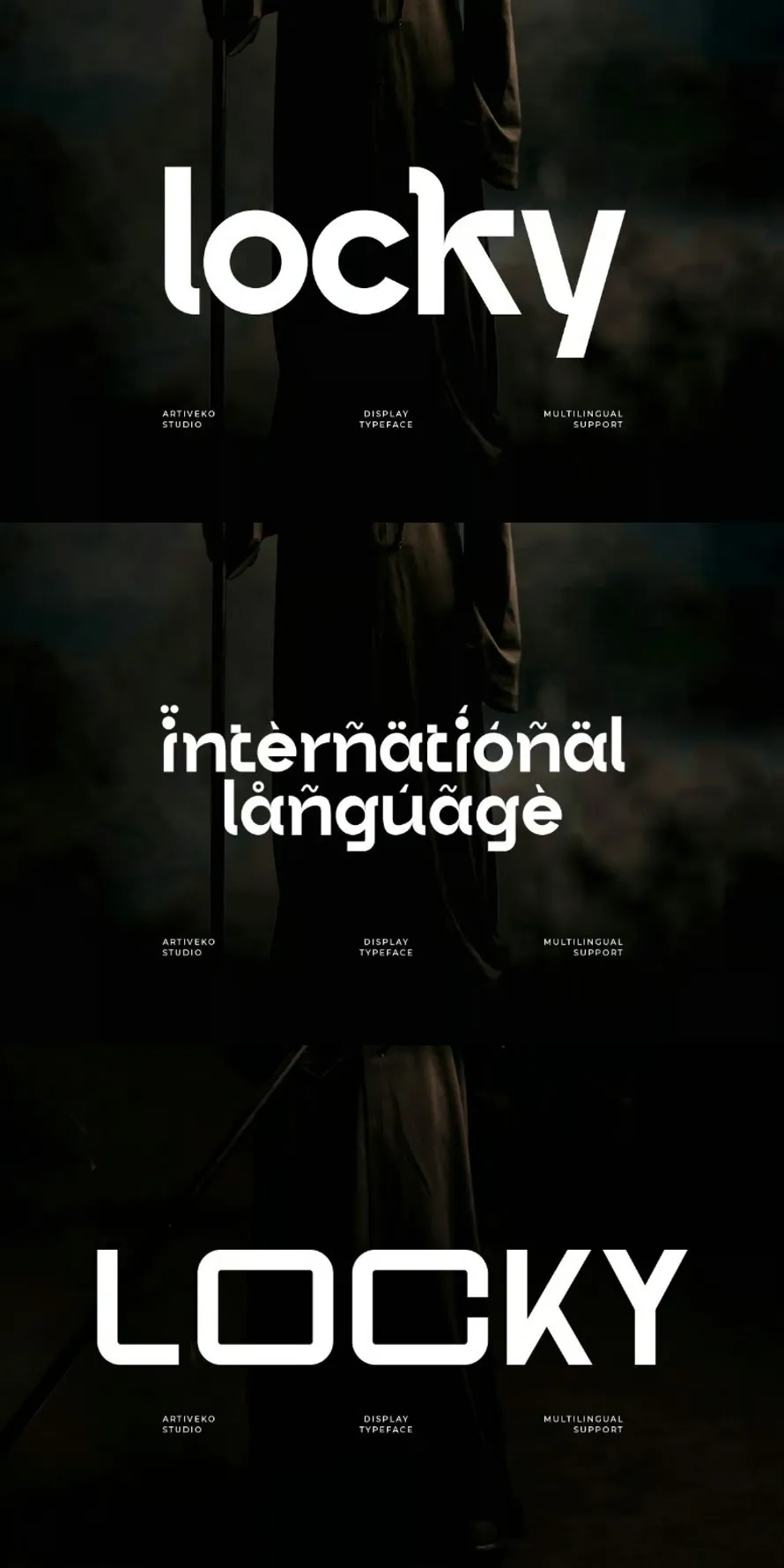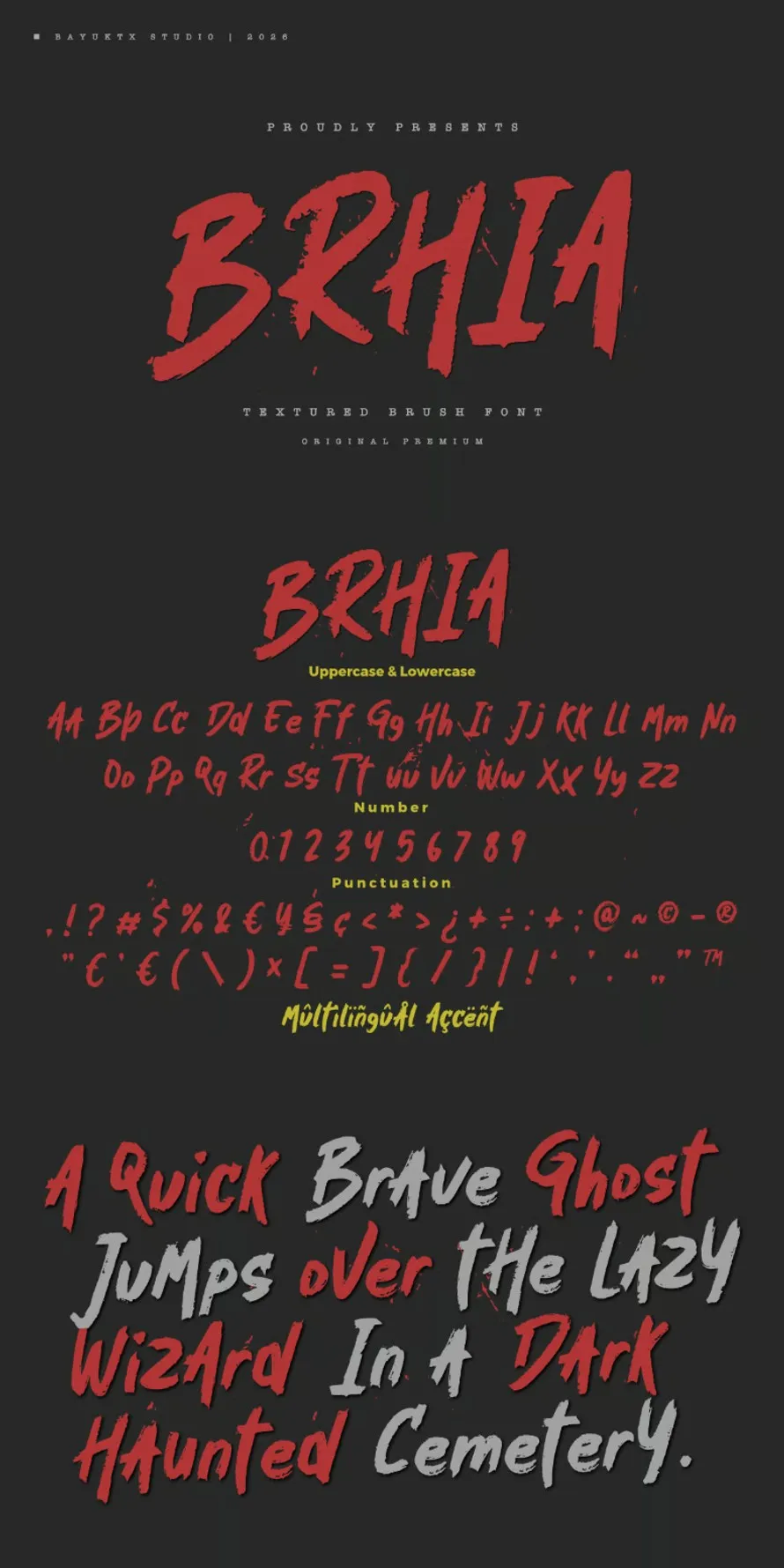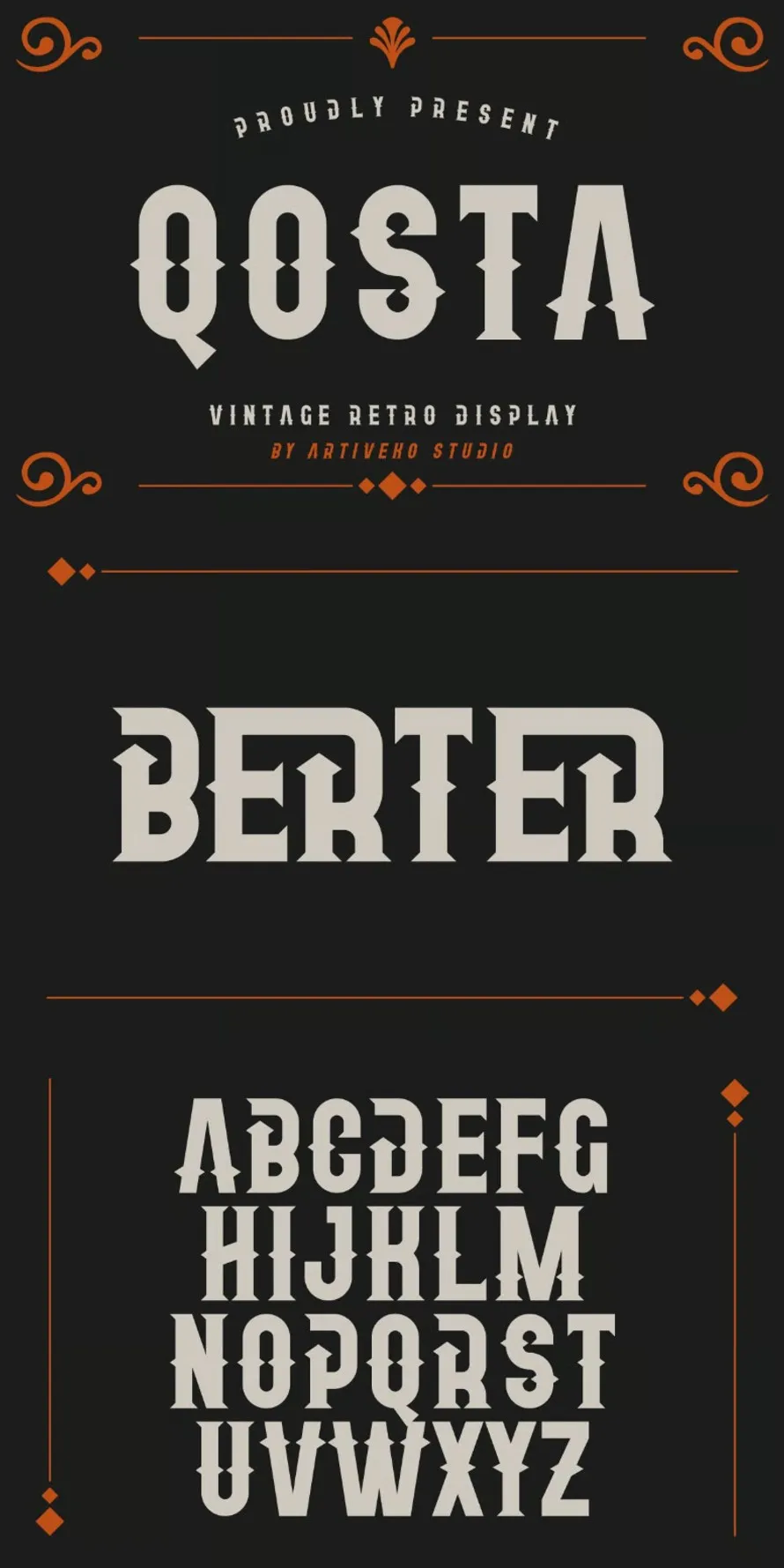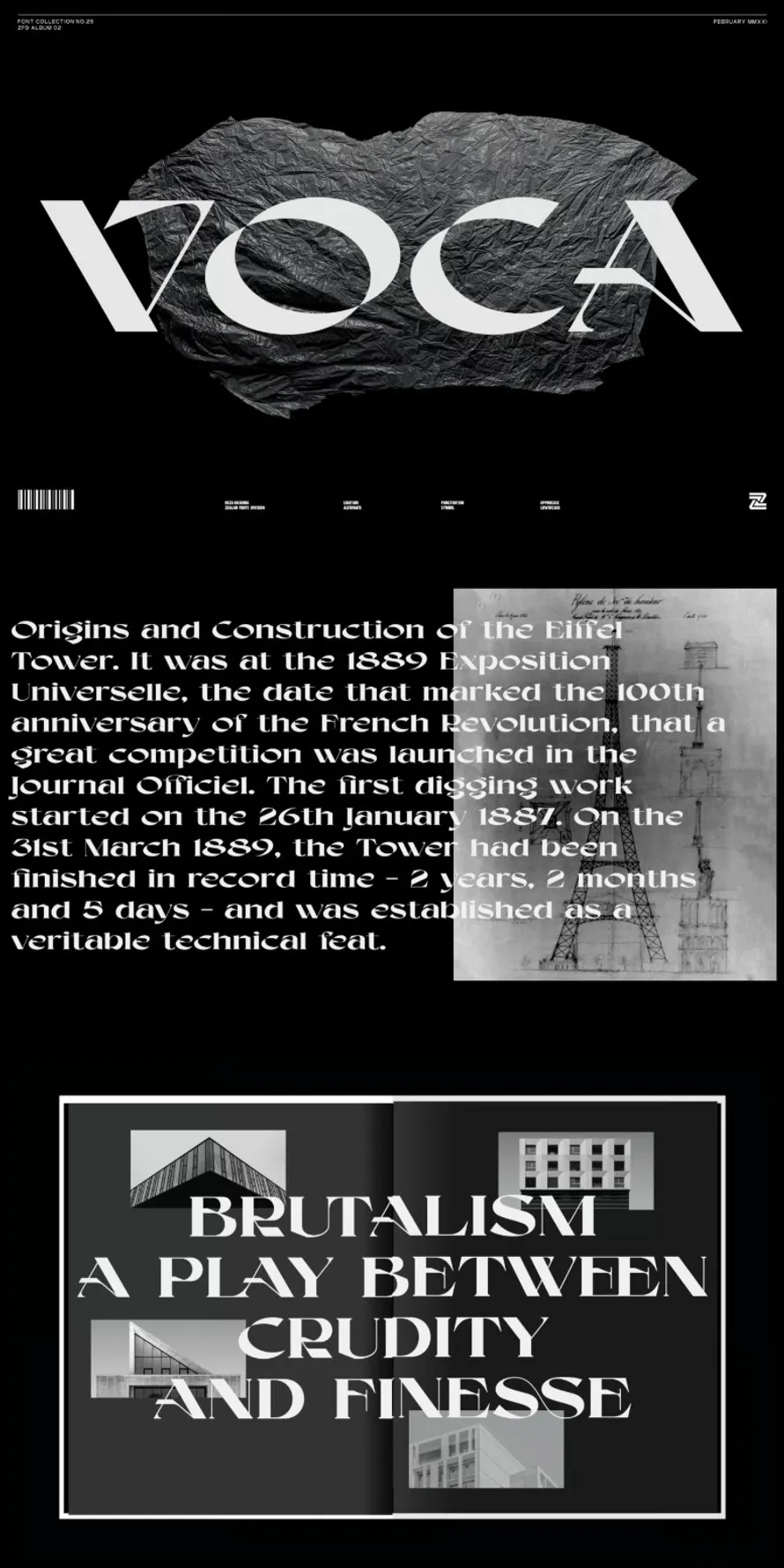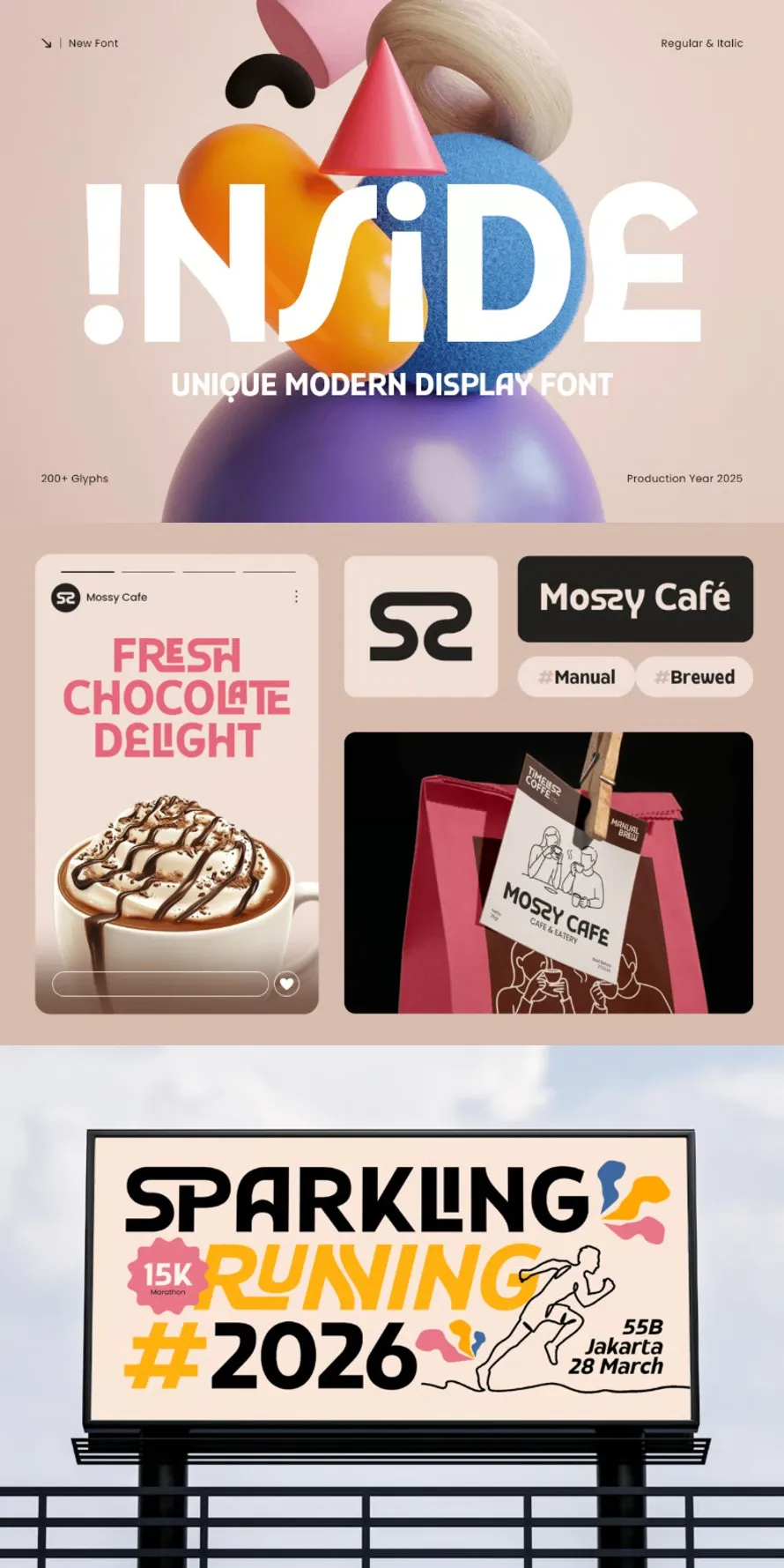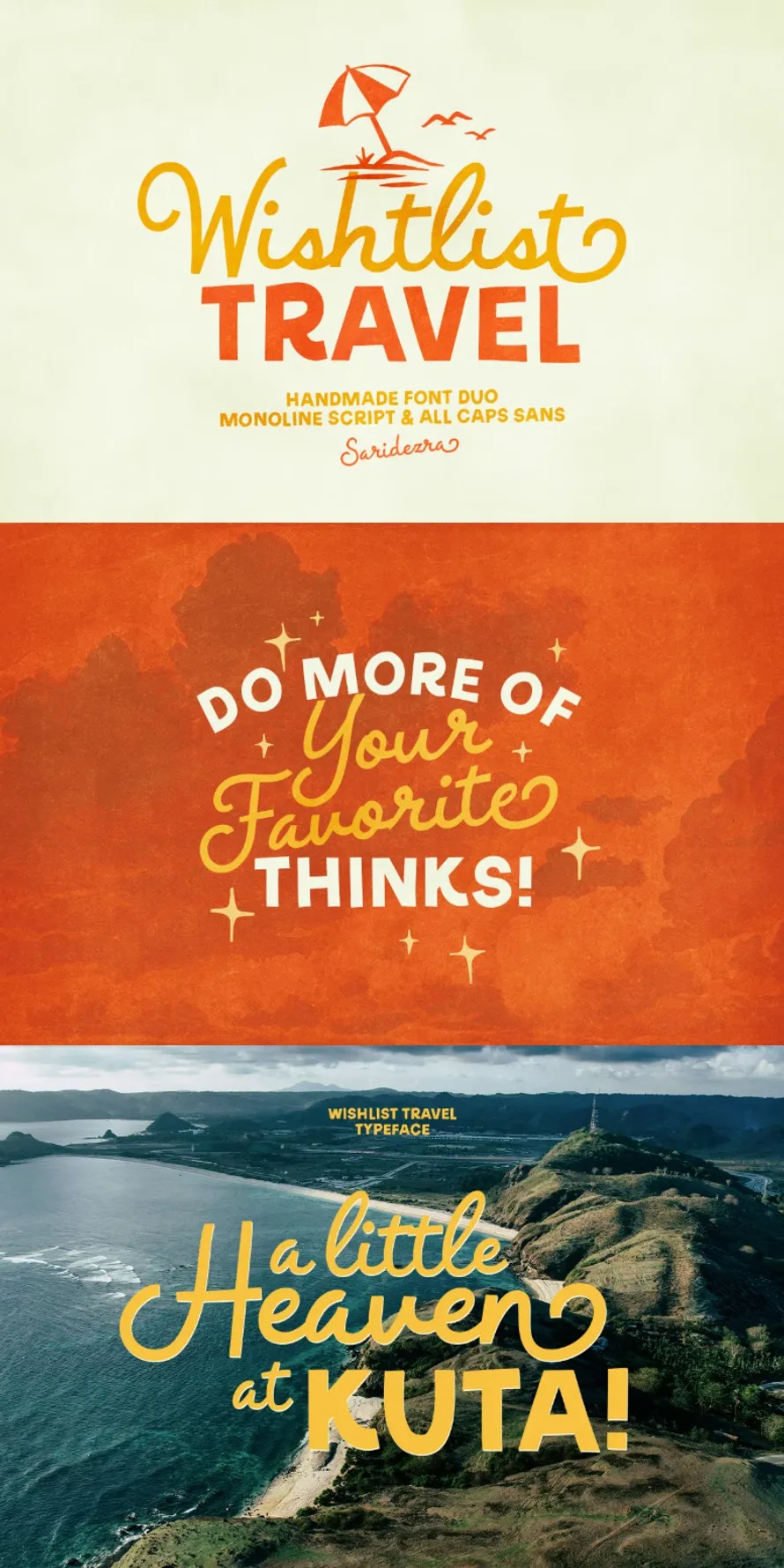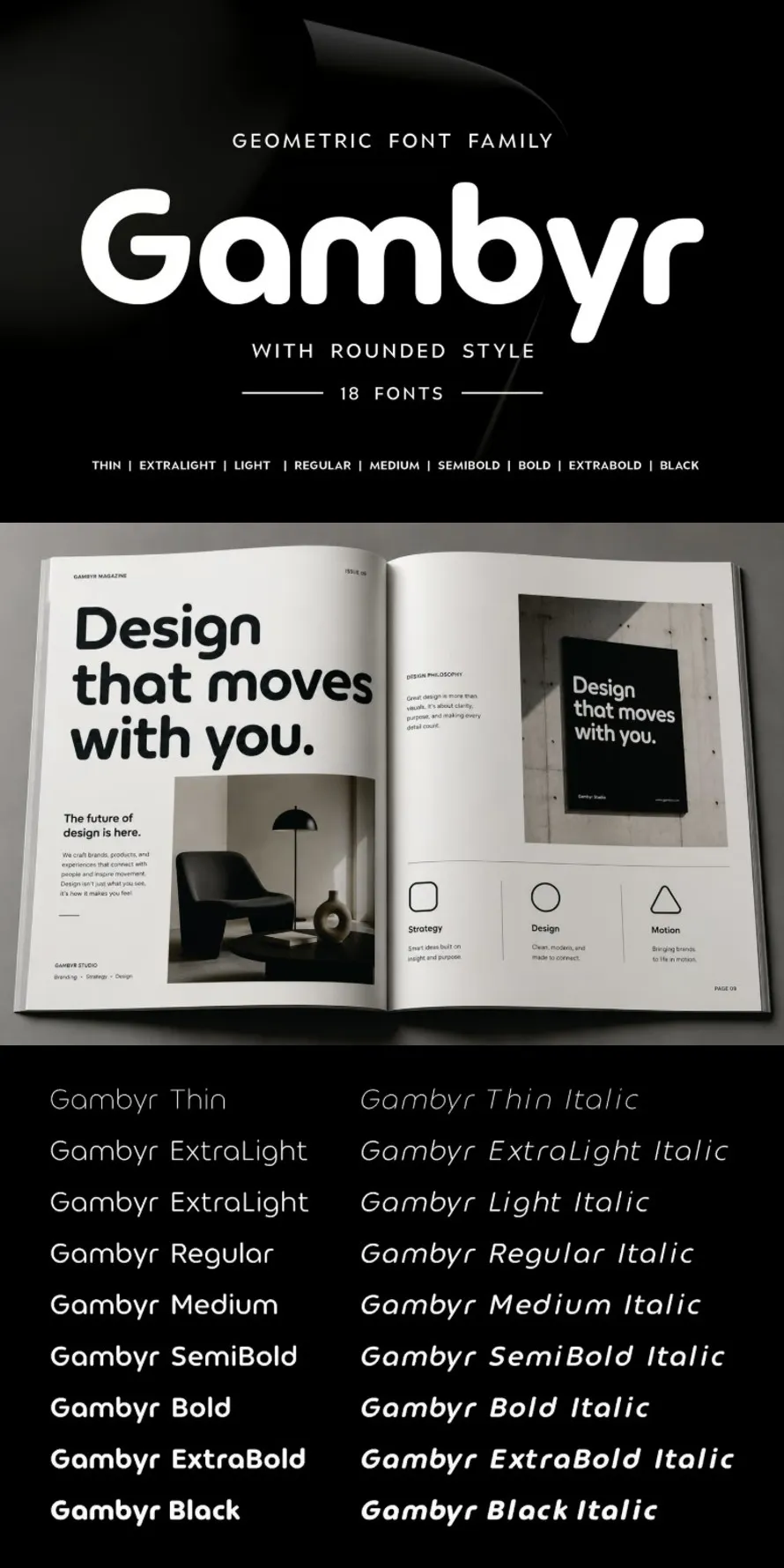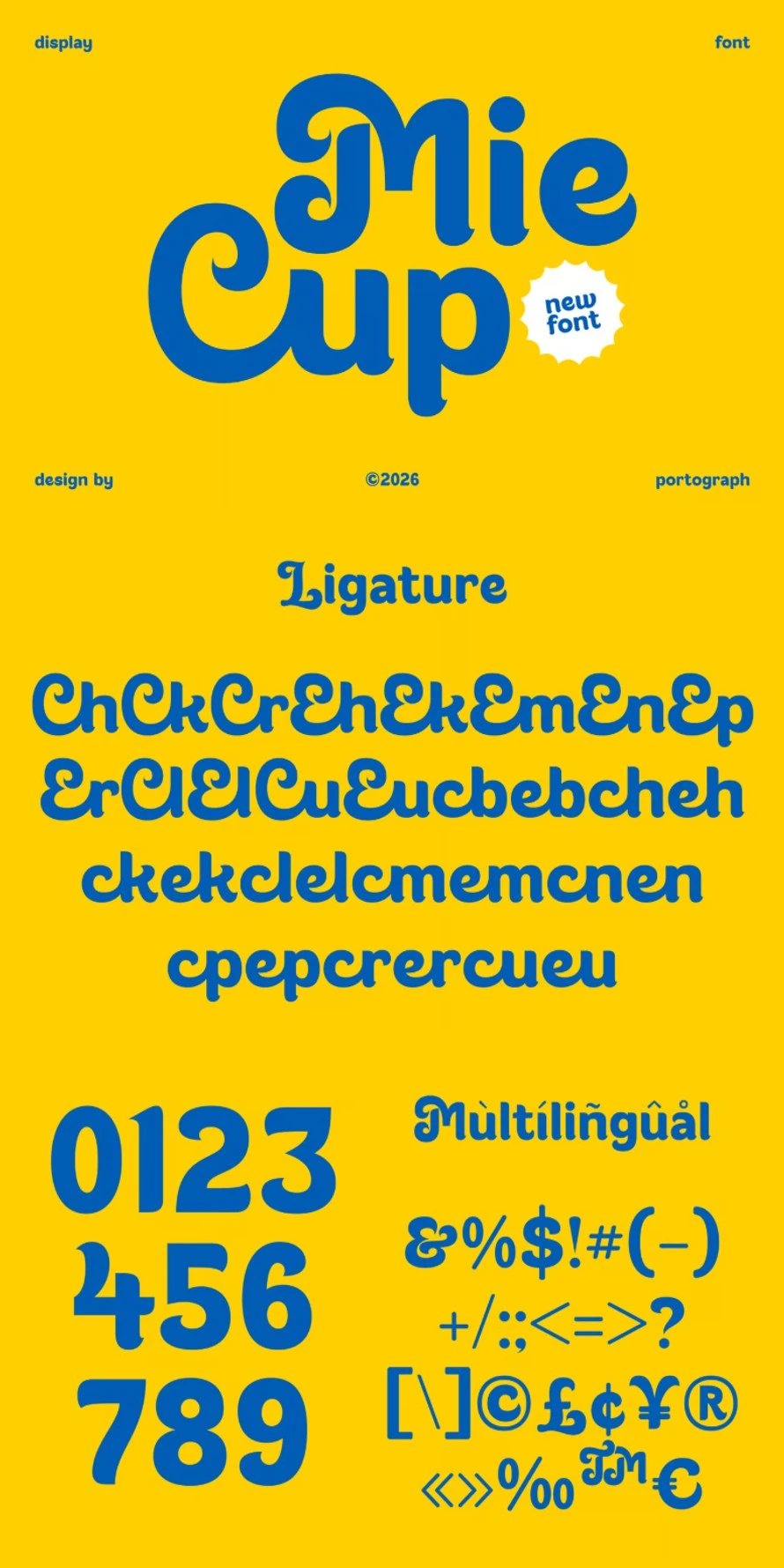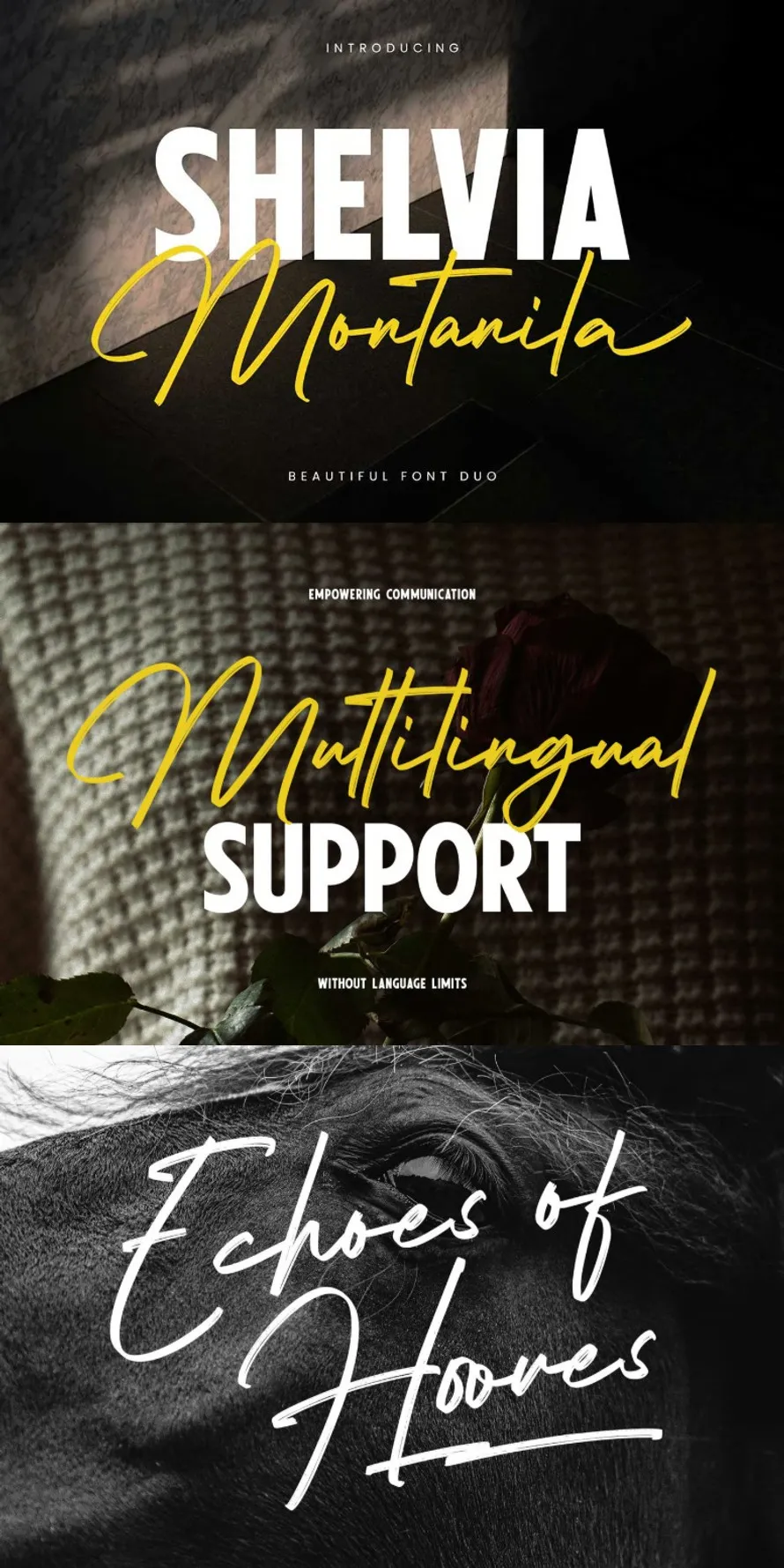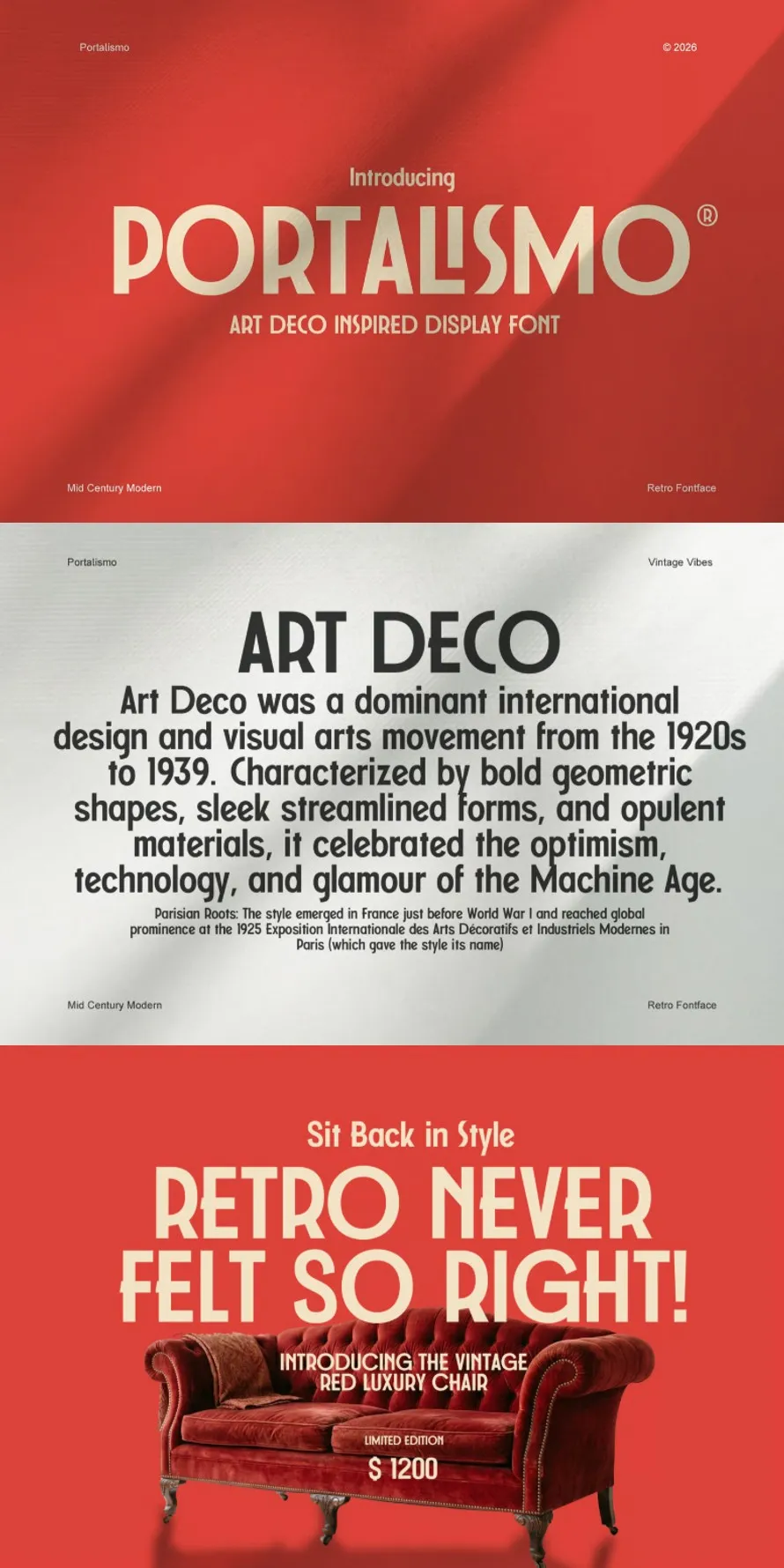
30 Best Poster Fonts Of 2026 (Free & Paid)
2026’s best poster fonts are here. Whether you’re designing event posters, advertising campaigns, movie promotions, music festival graphics, or social media banners, the right poster font can make your message stand out and leave a lasting impression.
In 2026, poster design trends continue to evolve with a mix of bold display fonts, modern sans-serif fonts, vintage-inspired typefaces, creative handwritten styles, and experimental typography. Designers are looking for fonts that not only look visually appealing but also communicate a strong personality and improve readability from a distance.
Best Poster Fonts Of 2026 (Free & Paid)
This collection of the 30 Best Poster Fonts of 2026 features carefully selected typefaces that are perfect for both print and digital projects. From striking headline fonts to artistic lettering styles, these fonts offer the flexibility needed to create memorable posters for businesses, brands, events, and personal projects.
Whether you’re a professional graphic designer, marketer, content creator, or beginner, you’ll find inspiring font choices that can elevate your poster designs. Explore this beautiful collection to discover modern, stylish, and high-impact poster fonts that will help your creative work stand out in 2026 and beyond.
Logo Font Pooline
Pooline font is a modern elegant sans serif typeface designed with a clean and minimal approach, making it perfect for contemporary branding and visual identity.
Drawing inspiration from Helvetica, Montserrat, and Futura, it combines geometric balance with a smooth, friendly appearance.
Wishlist Travel – Handmade Font Duo
Wishlist Travel is a clean handmade font duo contains monoline script and bold sans. With stylish and festive looks, you can use this font for any purposes such as wedding invitation, holiday card, logotype, quote, and branding.
The script of this font contains an ending alternates to balance the looks of the uppercase that will make your design even more stunning.
Brhia a Textured Brush Font
Brhia Textured Brush Font is a bold and expressive typeface inspired by raw brush strokes, hand-painted lettering, and gritty artistic textures.
Featuring rough edges, dynamic strokes, and natural imperfections, this font delivers a strong and impactful visual presence.
Locky – Contemporary Sans Poster Fonts
This font is perfect for posters, social media posts, branding, personal projects, etc.
Voca Serif Font
VOCA is a versatile, bold and unique serif font. Combination between high contrast and Brutalism style, VOCA has a unique style with stylistic, alternates, ligatures and supports multilingual languages.
Inside – Unique Modern Display Poster Fonts
INSIDE is a unique modern display font crafted to bring a bold and contemporary touch to your designs.
Perfect for branding, logos, headlines, posters, and digital media, it delivers a modern aesthetic while maintaining excellent readability.
Qosta – Vintage Retro Display Font
Boga – Food Font
Boga is a playful bold display font designed to bring fun, energy, and personality into your creative projects.
With its rounded shapes, quirky letterforms, and vibrant character, Boja is perfect for designs that need a cheerful and eye catching look.
Shelvia Montanila – Beauty Font Duo
Meet Shelvia Montanila, a beautiful font duo where bold clarity meets expressive elegance.
Gambyr – Geometric Font Family
Portalismo Art Decor Poster Font
Portalismo is an Art Deco-style display font with a vintage touch. Its tall, geometric, and decorative letterforms are perfect for bold designs.
This font is suitable for retro posters, logos, editorial titles, packaging, album covers, restaurant branding, event design, and social media content. Several ligatures help give it a more unique look.
Groovy Waves – Psychedelic Retro Poster Fonts
Bring bold retro energy into your projects with Groovy Waves – Psychedelic Retro Font.
Its playful curves and distorted letterforms instantly add movement and character to any layout.
Mie Cup – Food Font
Mie Cup is a bold and playful retro display font designed to bring a fun and flavorful personality to your design projects.
Namskout Free Poster-Style Font
Kabisat Retro-techno Y2k Font
Burnts Marker Typeface Font
Free Dtmf Font
Dx Burst Free Font